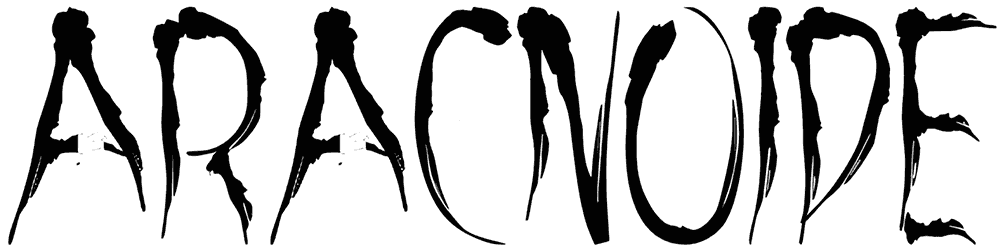
Aracnoide Font
If you want to open a special place for yourself in truly spooky entertainment, Aracnoide is a blood-curdling font that can scare the pants off your viewers. This evil font does not include small letters and punctuation and has terrible fades that have given it a dangerous look.
As a result, it can guarantee an impressive graphic from your wild imagination. To create maximum impact in posters, computer games, and horror movie titles, Aracnoide is the best option.
Esta fuente formaba parte de la familia spider… pero es aun mejor…
This font was part of the spider family … but it’s even better